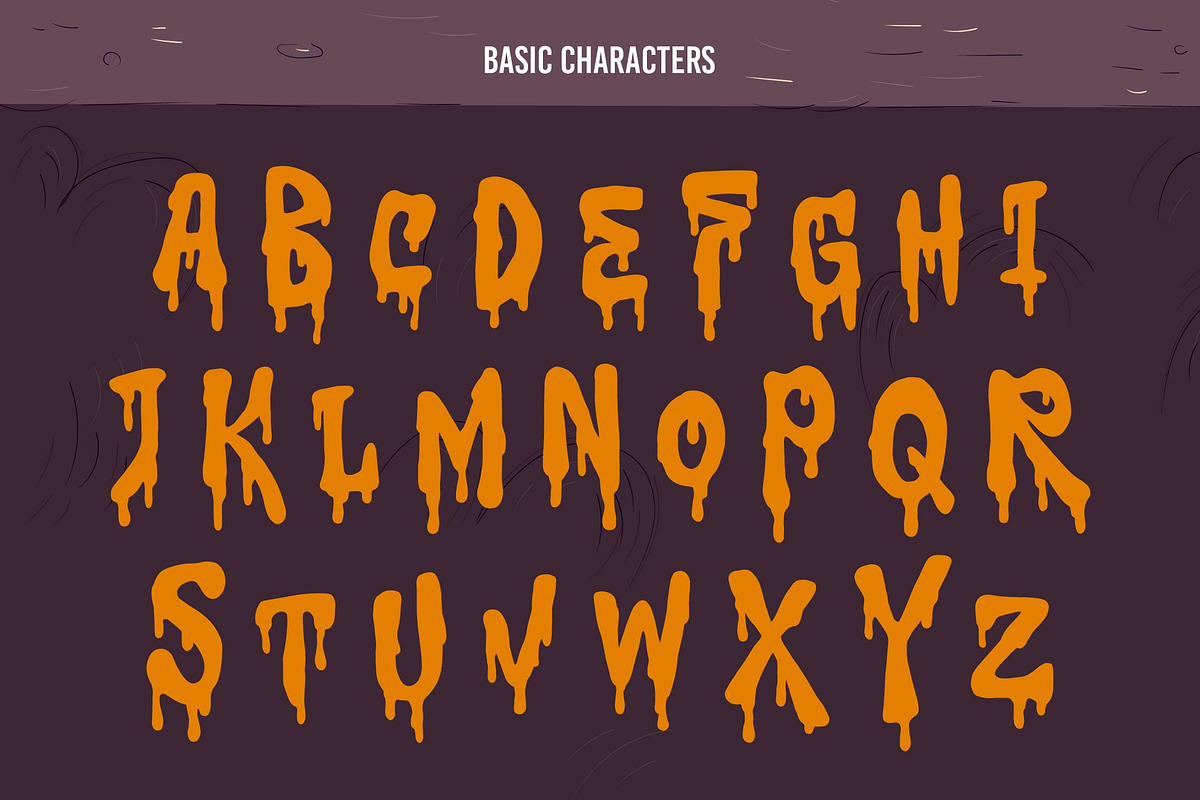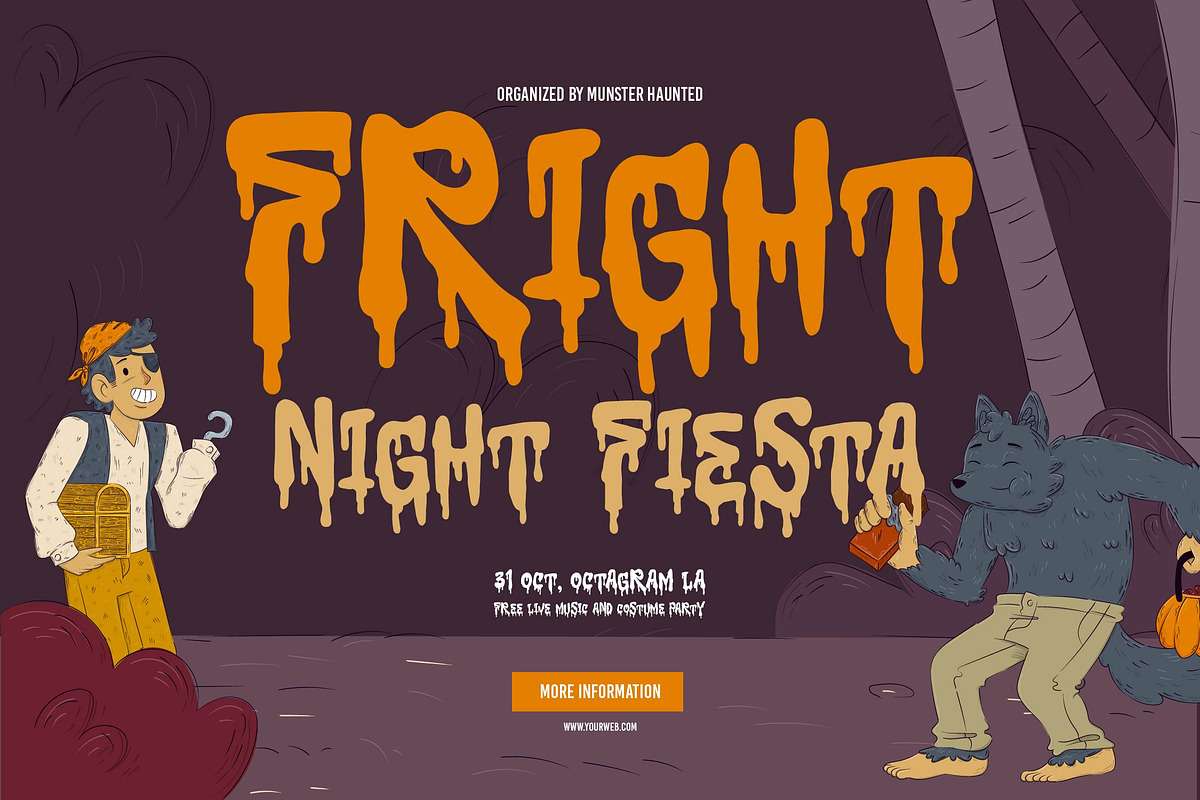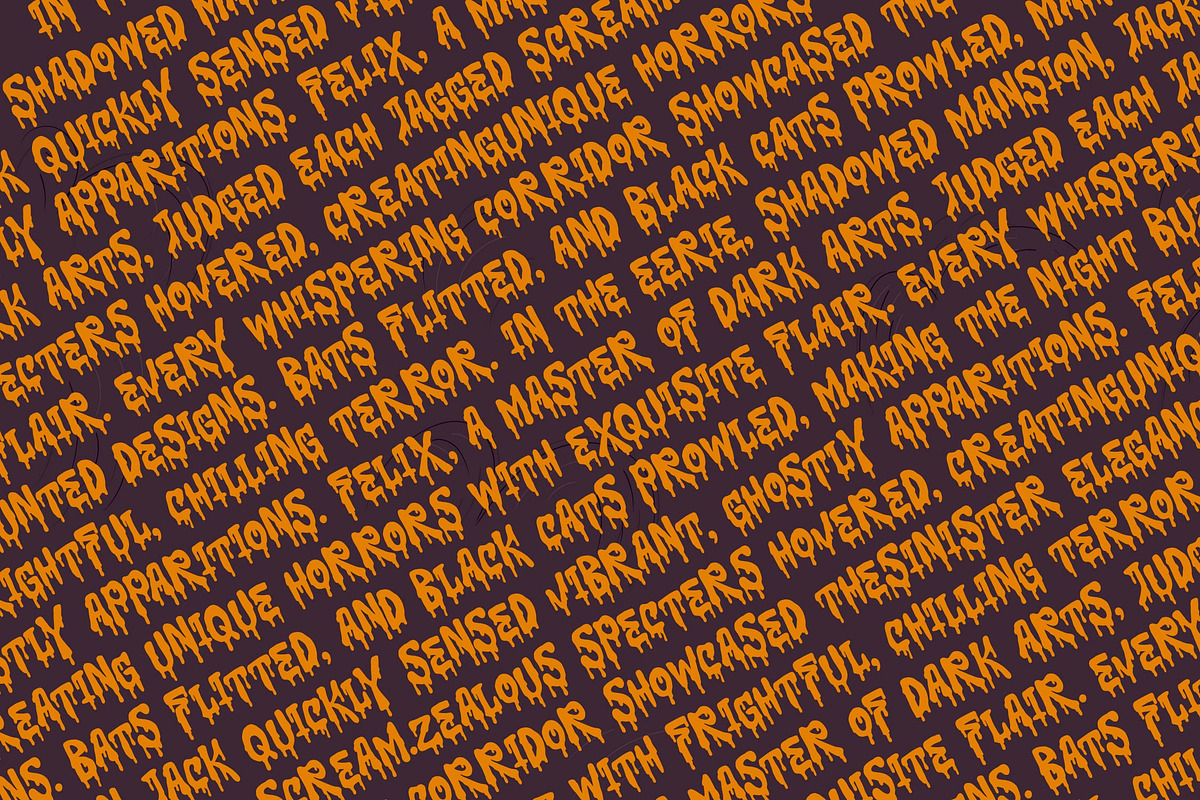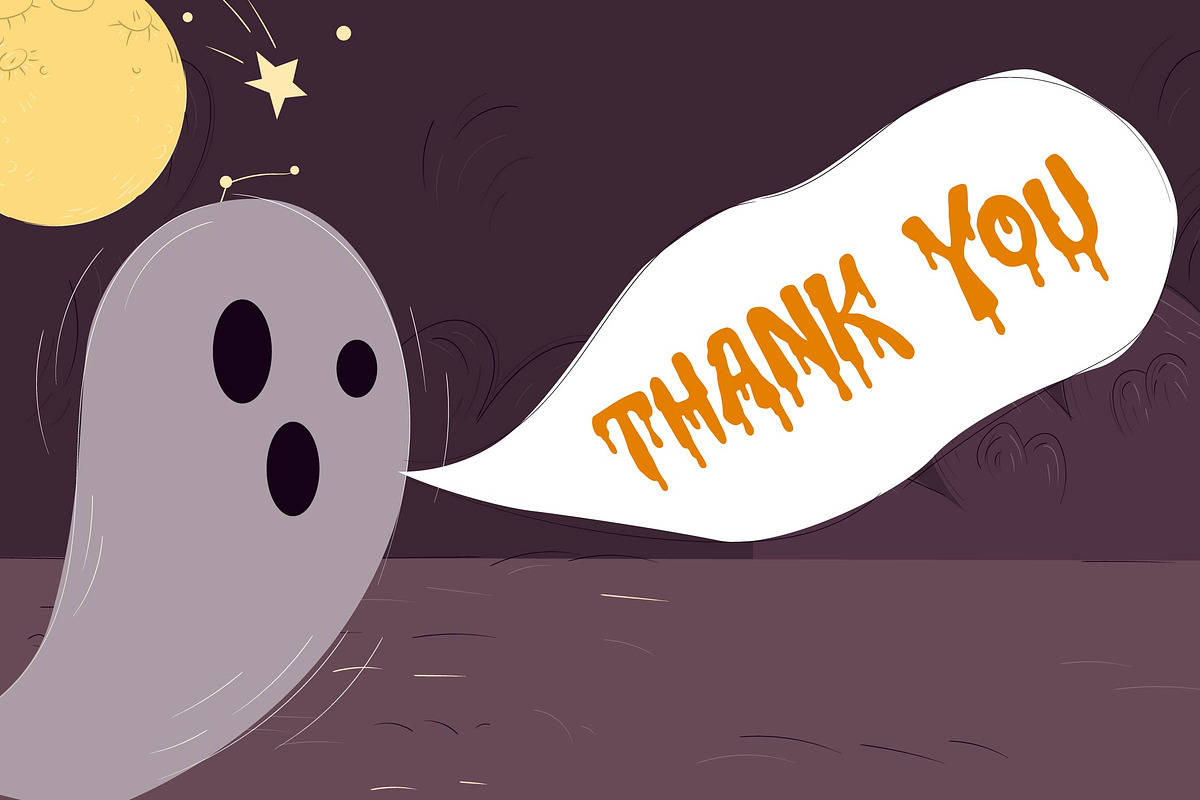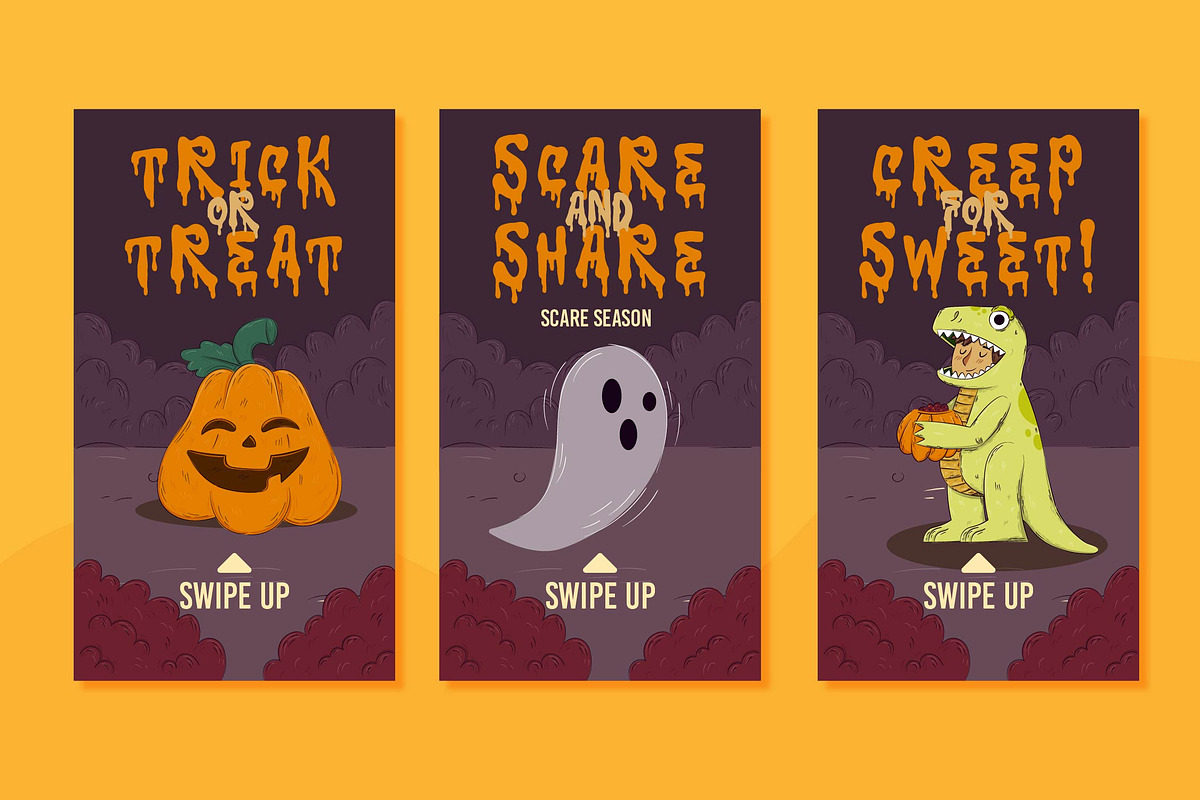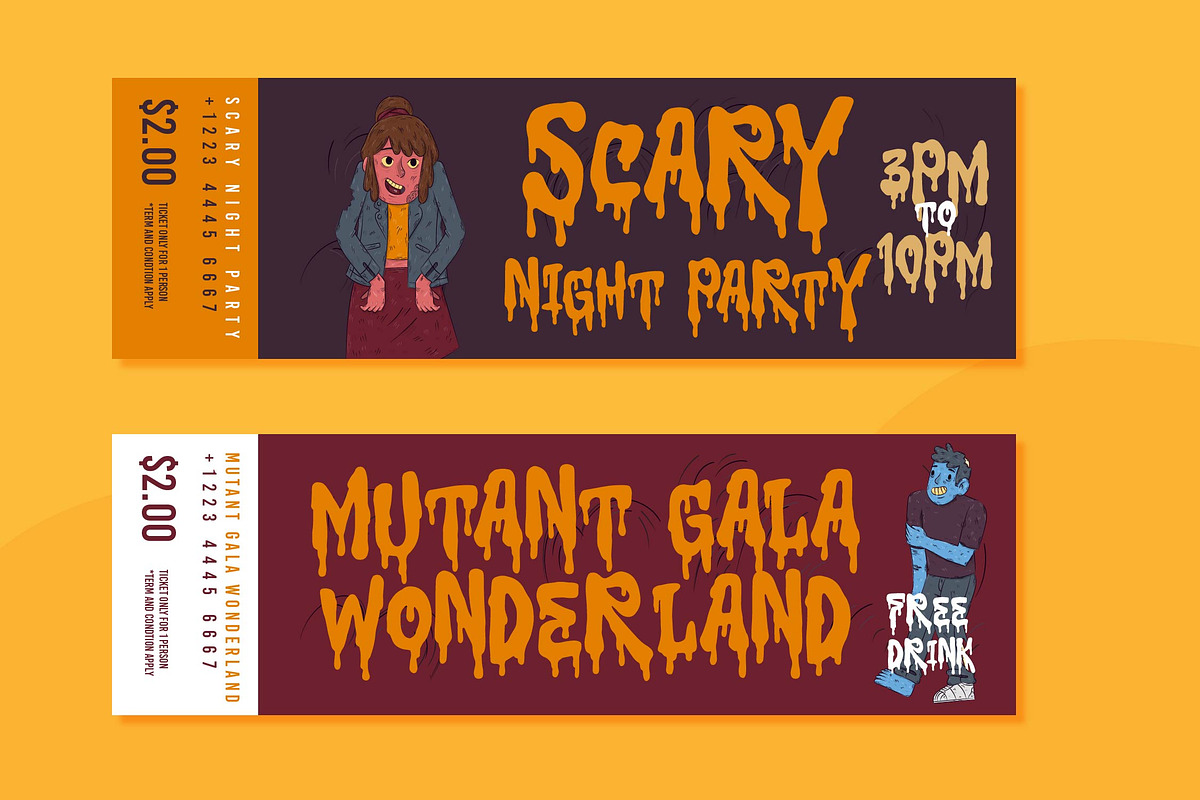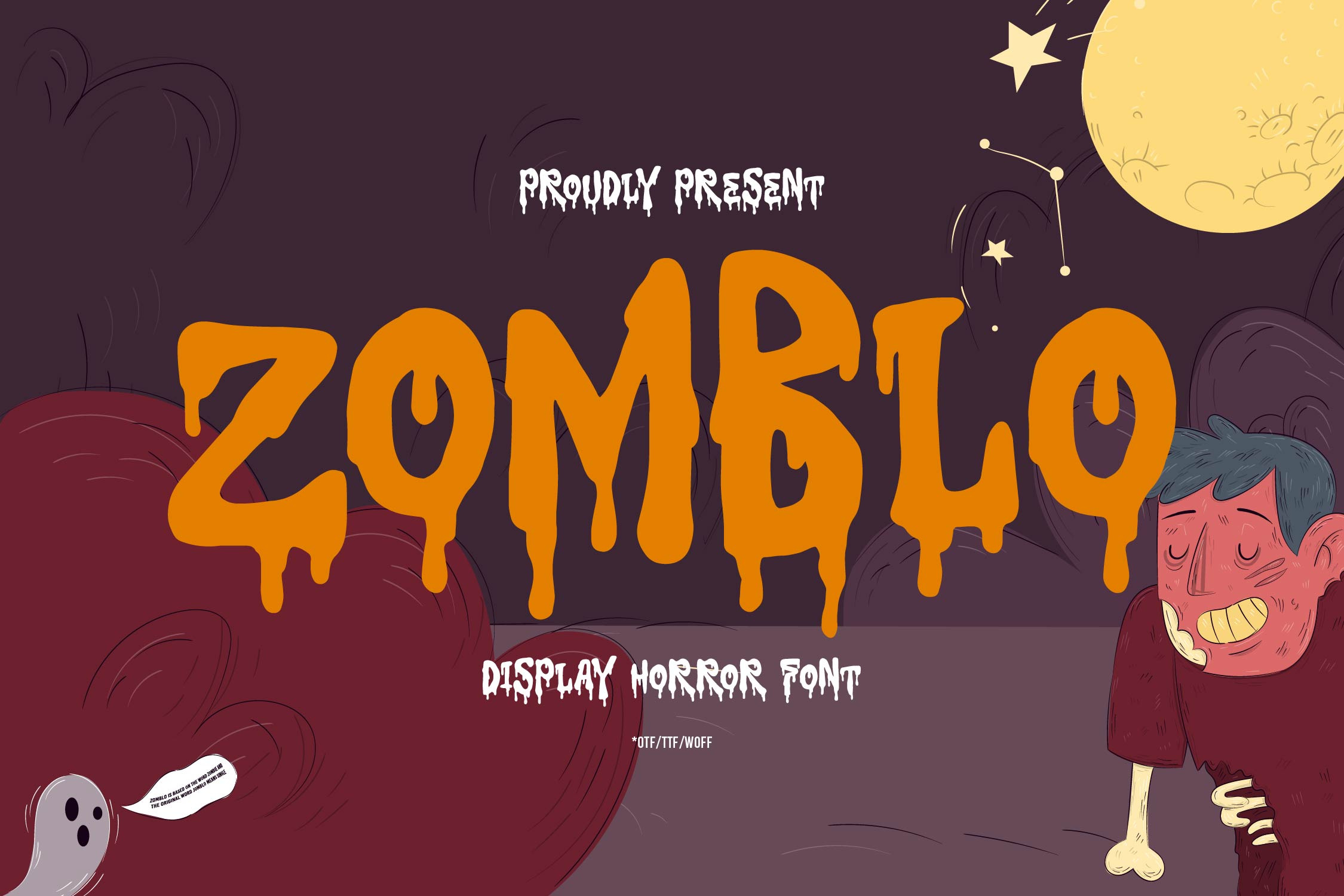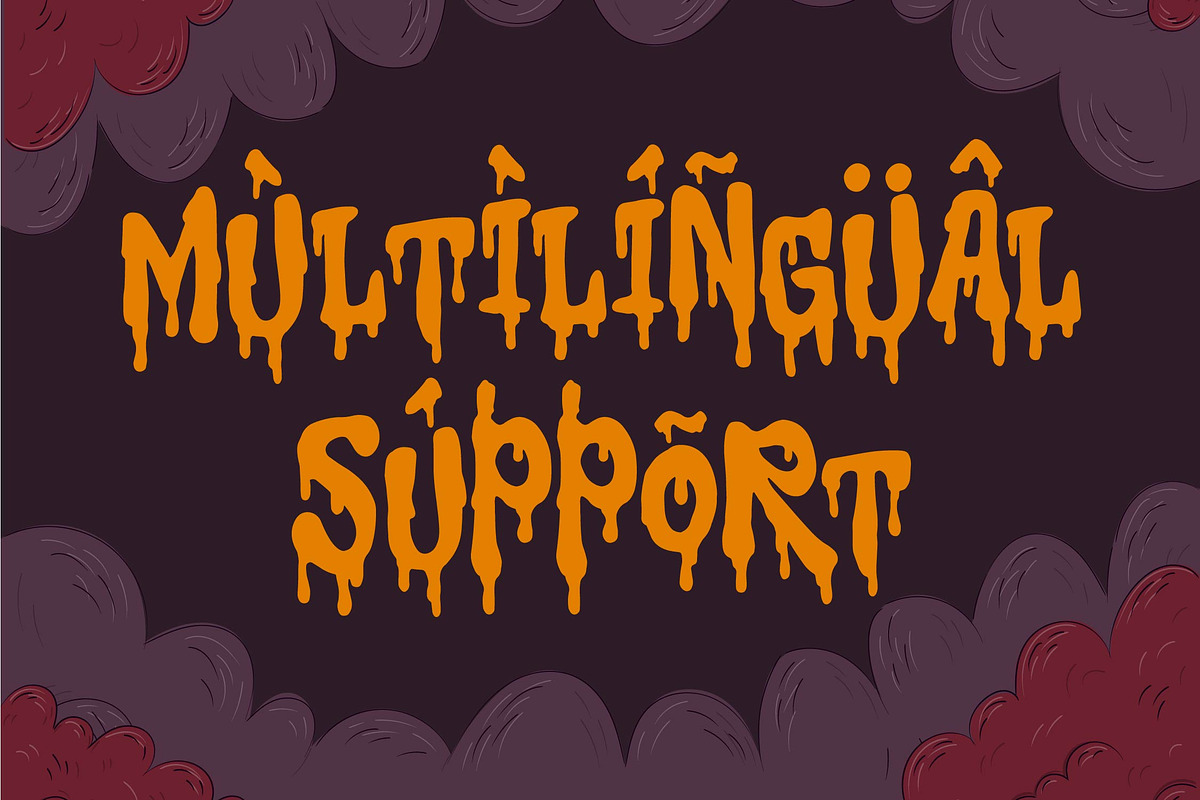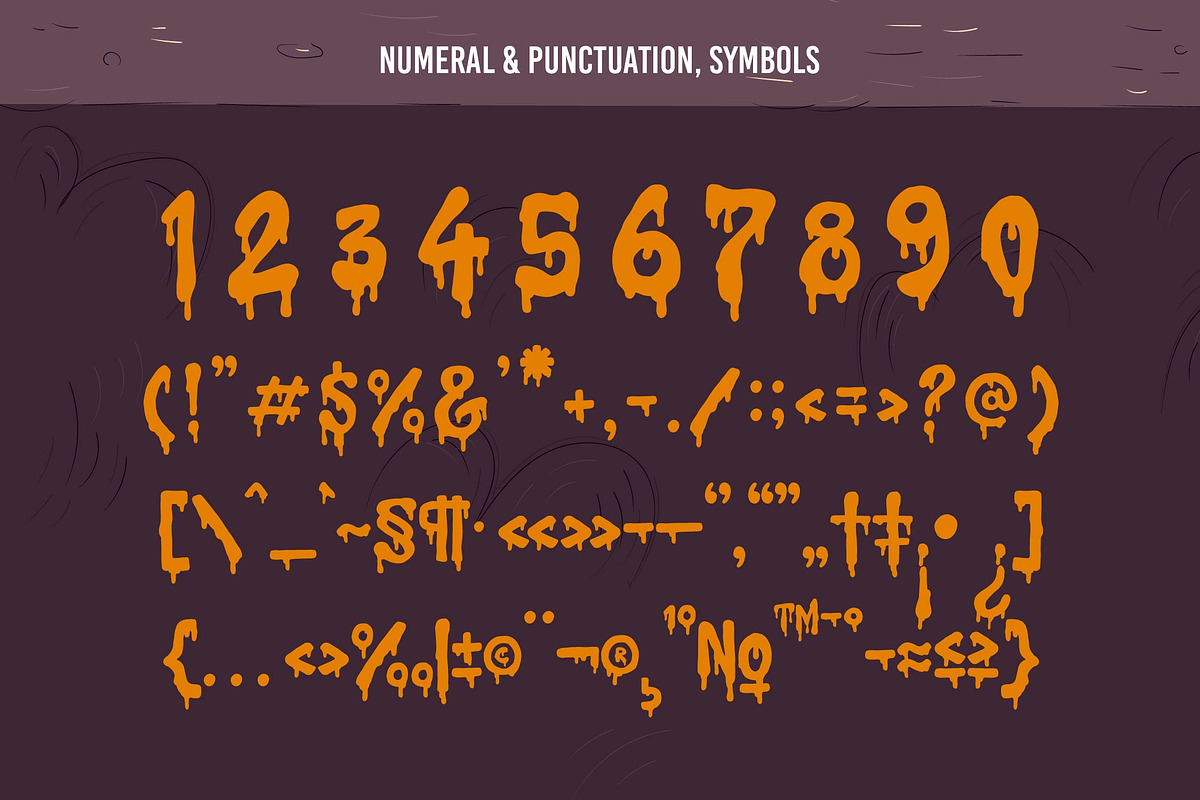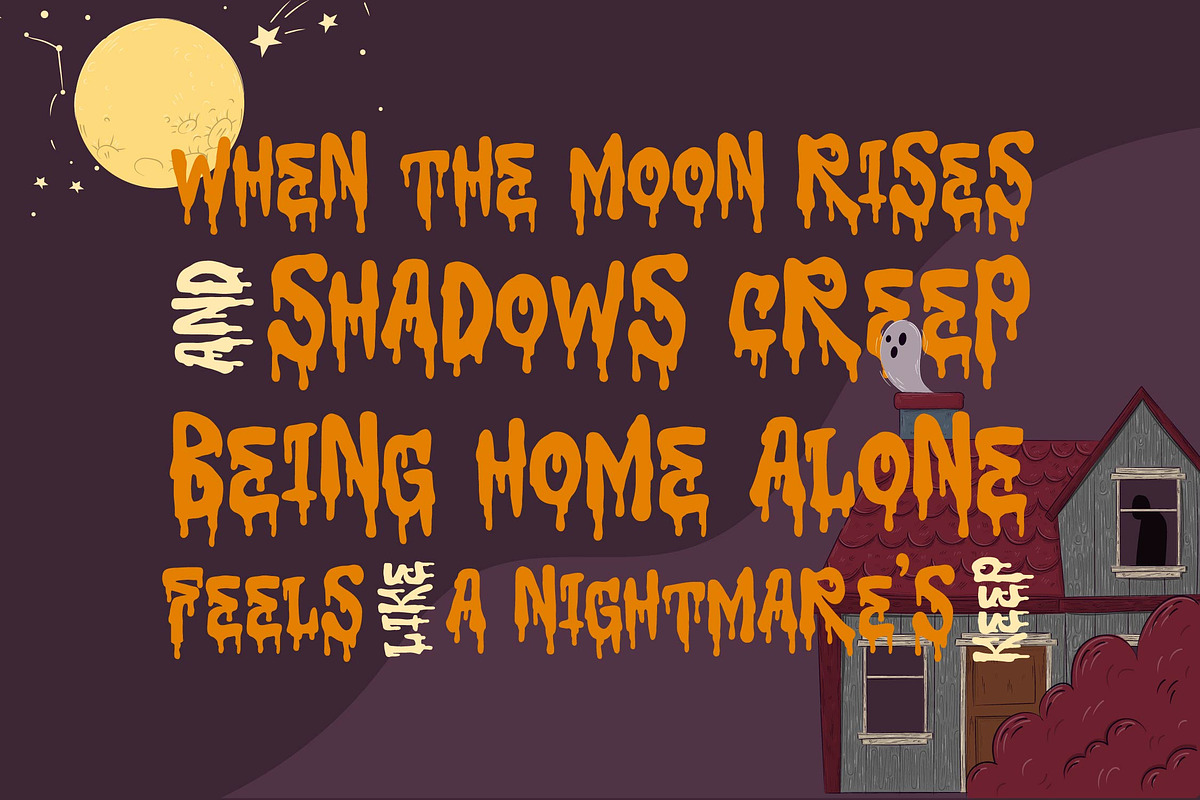
Zomblo | Halloween Horror Font
Zomblo | Halloween Horror Font, from Denustudios, suitable for any projects such as: logos, branding projects, homeware designs, product packaging, mugs, quotes, posters, shopping bags, t-shirts, book covers, name card, invitation cards, greeting cards, label, photography, watermark, special events, and all your other lovely projects that need a Halloween Horror Font taste.